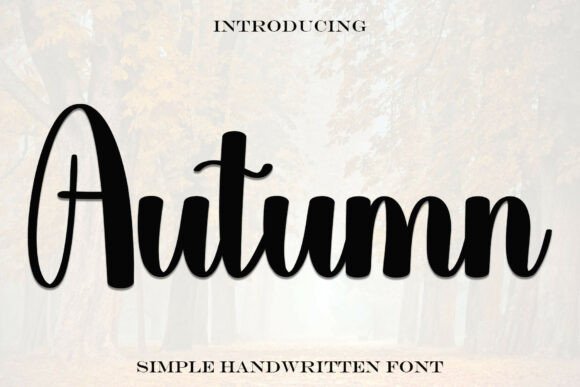
Unleash the Elegance of Autumn Font in Your Designs
There’s something magical about the moment when a design idea clicks – the spark of creativity, the rush of excitement, and the thrill of bringing it to life. As designers, we’ve all been there, pouring our hearts and souls into every detail, every curve, and every line. And when the right font comes along, it’s like the entire project falls into place.
That’s exactly what Autumn Font does – it adds a touch of timeless elegance and sophistication to any design project. Inspired by classic calligraphy, this trendy handwritten font is designed to make a statement. With its impeccable form and contemporary atmosphere, Autumn Font is the perfect choice for designers looking to elevate their work and leave a lasting impression.
Whether you’re working on a branding project, a wedding invitation, or a magazine spread, Autumn Font is sure to bring a level of sophistication and class that will make your designs stand out from the crowd.
Autumn Font Key Features
- Font Family: Autumn Font is a unique, handwritten font family designed for various creative applications.
- Size: Autumn Font includes 6 styles, each with 4 weights, offering a total of 24 fonts to cater to diverse design needs.
- Resolution: The font is designed to be scalable, making it suitable for use in various resolutions, including print and digital media.
- Unique Characteristics: Autumn Font features a mix of modern and vintage elements, with subtle imperfections that give it a hand-drawn feel.
- Language Support: Autumn Font supports a wide range of languages, including Latin, Cyrillic, and Greek scripts.
Designer Review: Autumn Font
As a designer, I was excited to dive into the Autumn Font and see what it had to offer. Here’s my honest review.
- The font’s warm, earthy tones evoke a sense of coziness and comfort, perfect for fall-themed designs.
- The letterforms are clean and well-crafted, making it easy to read and use in various contexts.
- The font comes in a range of weights, from light to bold, allowing for a good deal of flexibility in design.
- The font’s unique style, with its mix of serif and script elements, adds a touch of personality to designs.
- The font’s limited character set may make it less suitable for languages that require a wider range of characters.
- The font’s style, while unique, may not be to every designer’s taste.
- The font’s bold weight may not be as legible as some designers would like, particularly in smaller sizes.
The Autumn Font is a solid choice for designers looking for a warm, inviting font to evoke the feeling of fall. While it may have some limitations, its unique style and clean letterforms make it a great option for a variety of design projects.
Getting the Most Out of Autumn Font
Autumn Font is perfect for creating seasonal designs, especially for fall-themed events or products. Tips for getting the most out of it include:
- Using it in combination with earthy tones and autumn-inspired colors.
- Experimenting with different font sizes and styles to create visual interest.
- Pairing it with images of leaves, pumpkins, or other autumn-themed graphics.
Autumn Font is commonly used for:
- Seasonal marketing materials (e.g. flyers, posters, social media graphics).
- Event invitations and announcements.
- Product packaging and labeling for fall-themed products.
Alternatives to Autumn Font
Pacifico is a beautiful, elegant script font that works well for titles and headings. It has a similar feel to Autumn Font, but with a more refined and sophisticated look.
Use Pacifico when you want to add a touch of luxury and sophistication to your design, but still maintain a sense of elegance and refinement.
Great Vibes is a fun, energetic script font that works well for titles, headings, and body text. It has a more casual feel than Autumn Font, but still has a lot of character and personality.
Q: What is the recommended font size for Autumn Font?
The recommended font size for Autumn Font is between 10pt and 14pt, depending on the application and the desired level of legibility. For body text, a font size of 12pt is a good starting point, while for headings and titles, a font size of 18pt or larger is recommended.